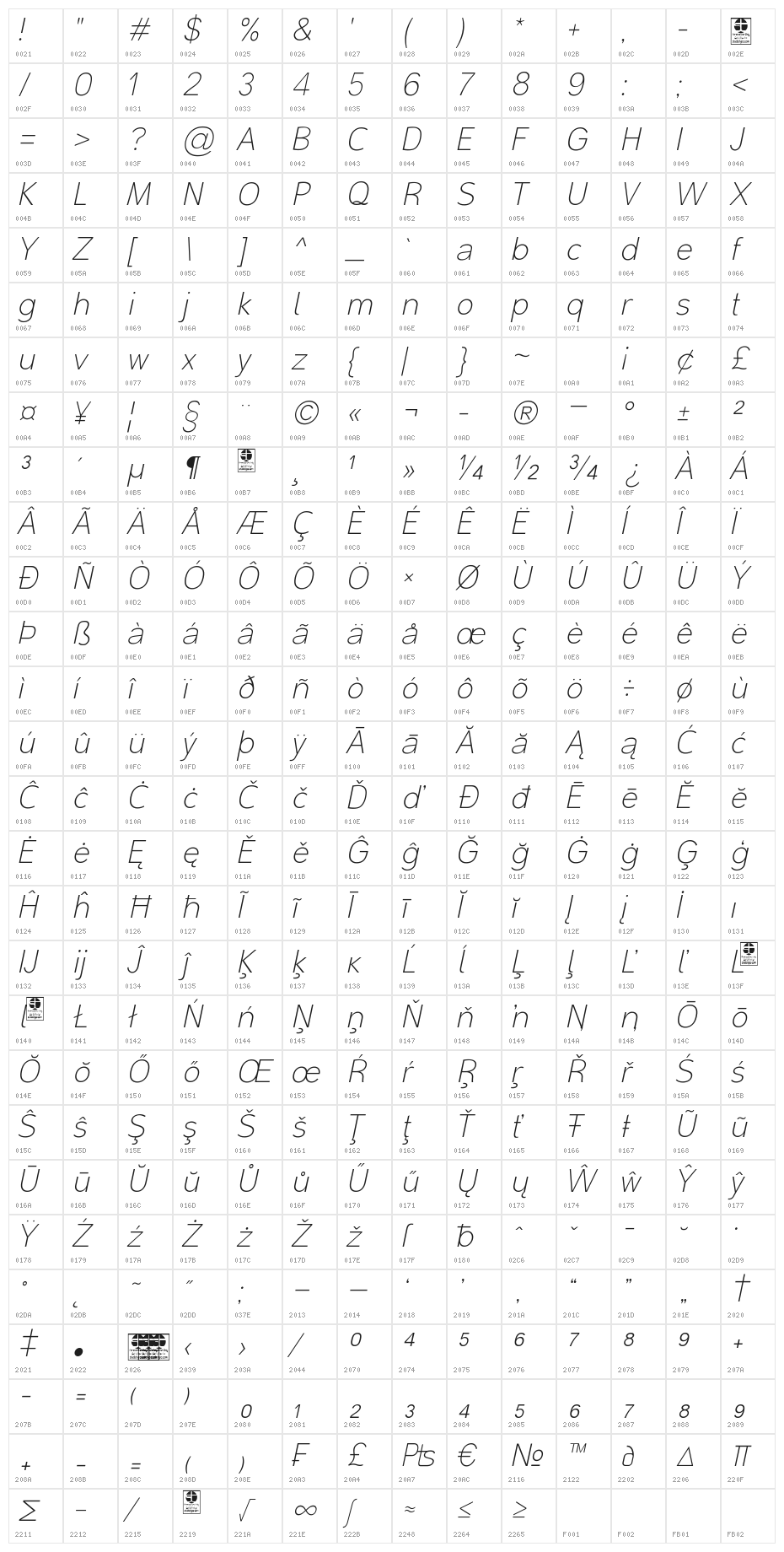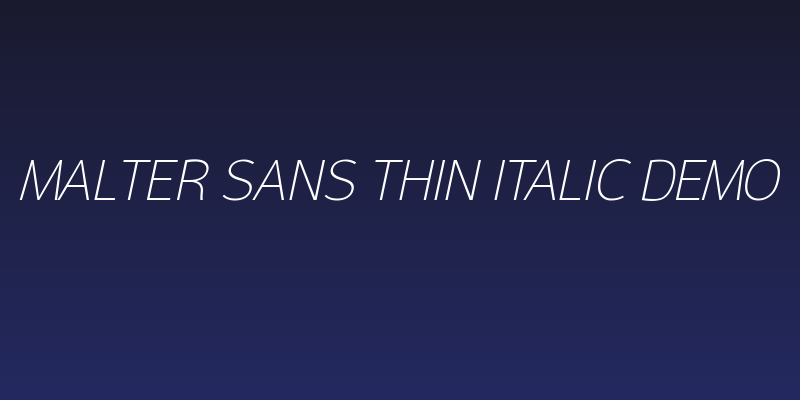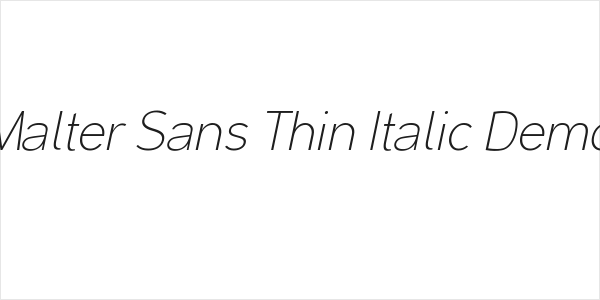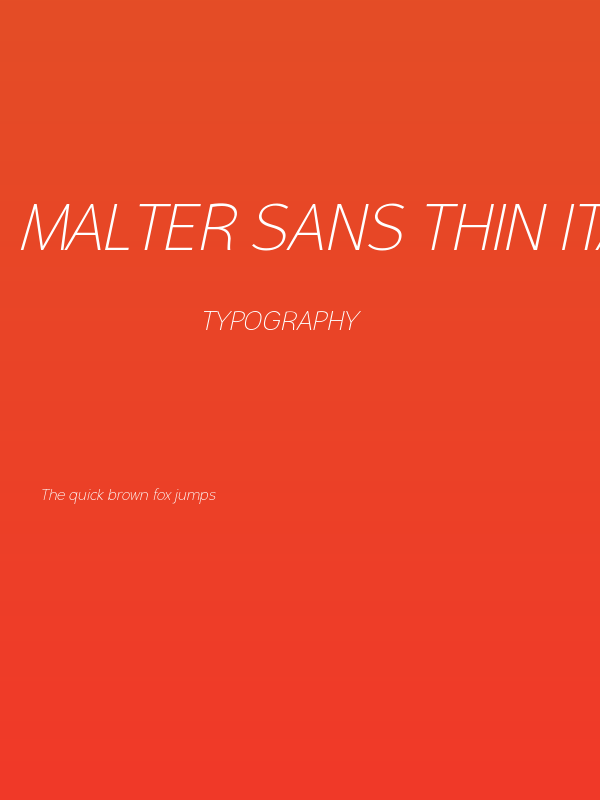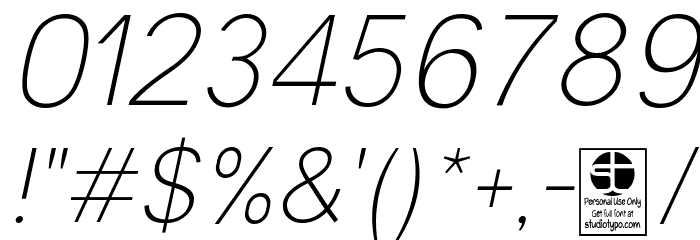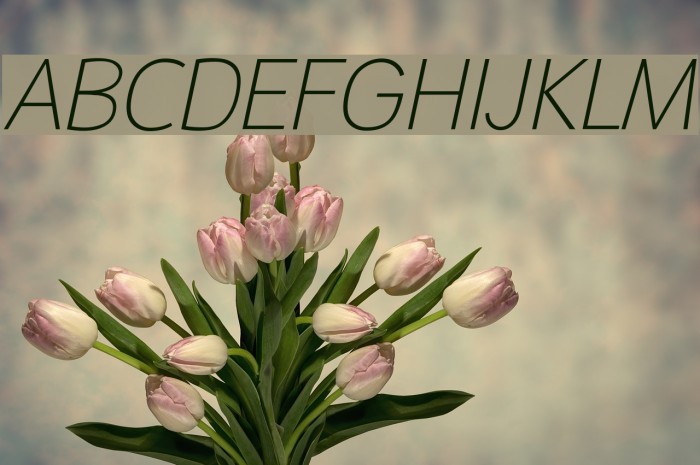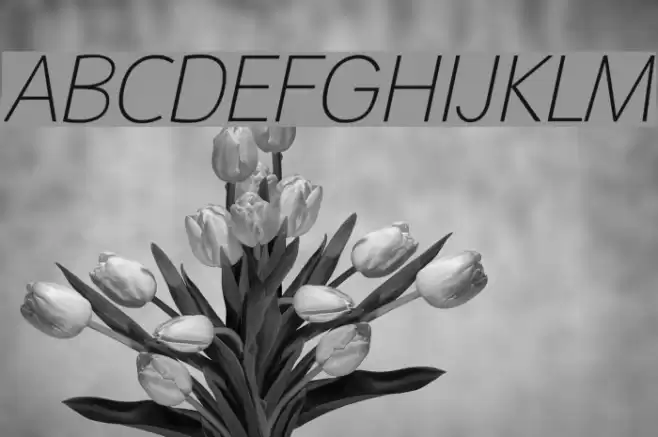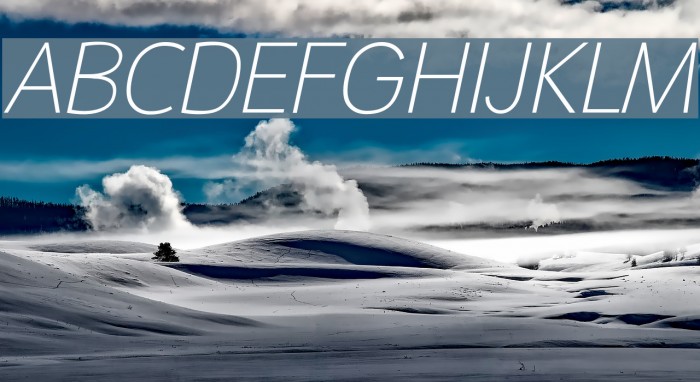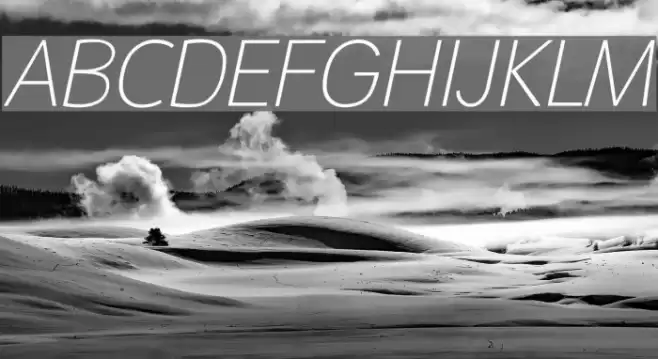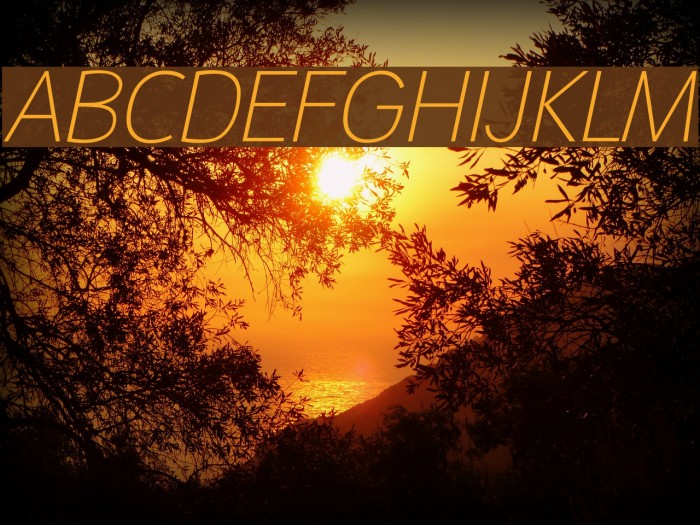
Malter Sans Thin Italic Demo Font
Malter Sans Thin Italic Demo Description
This font features a sleek and modern design with a thin, elegant structure. The italic style adds a dynamic and sophisticated touch, making it suitable for contemporary design projects. The characters are well-proportioned, with a slight slant that enhances readability while maintaining a stylish appearance. The thin strokes give it a delicate and refined look, perfect for projects that require a subtle yet impactful typeface. The font includes a full set of uppercase and lowercase letters, numbers, and a variety of special characters, ensuring versatility in its application.
| Proposed Projects | Ideal for branding, editorial design, fashion magazines, and minimalist web design. |